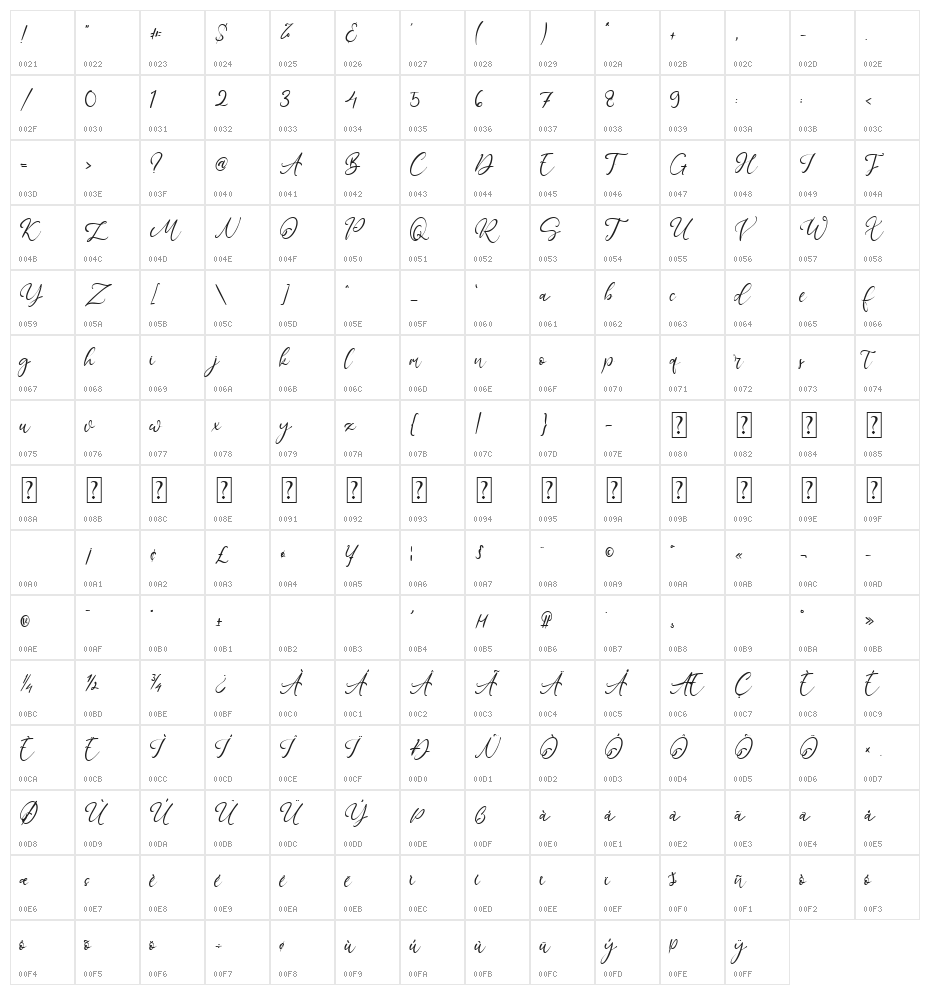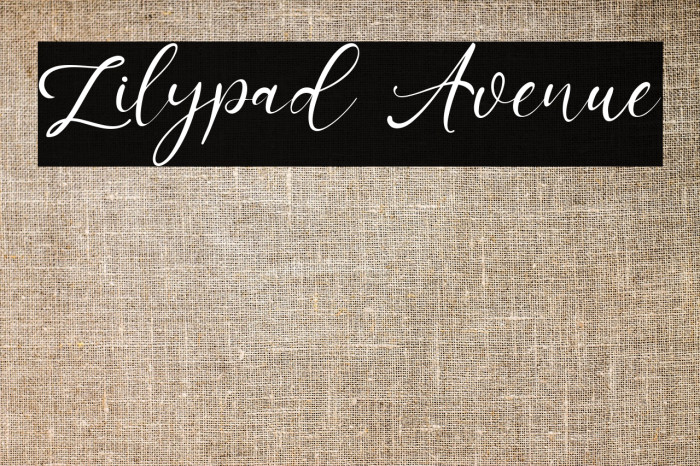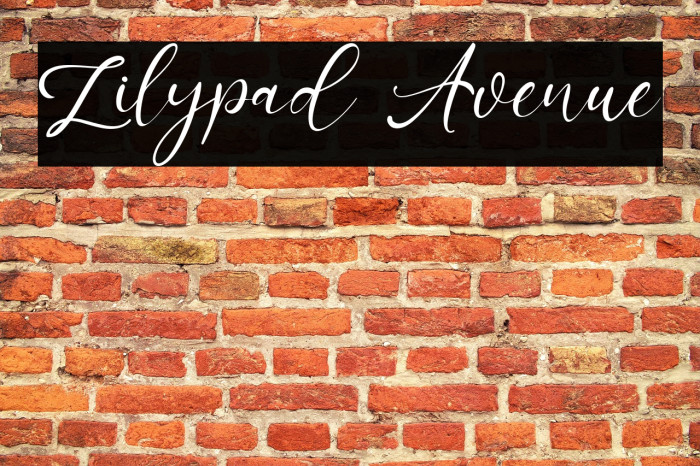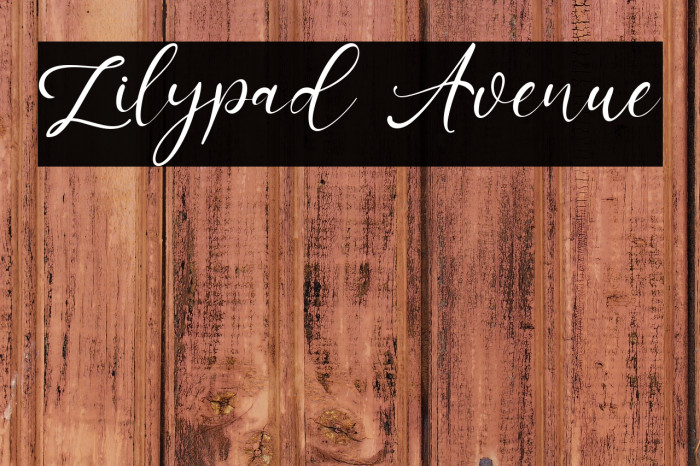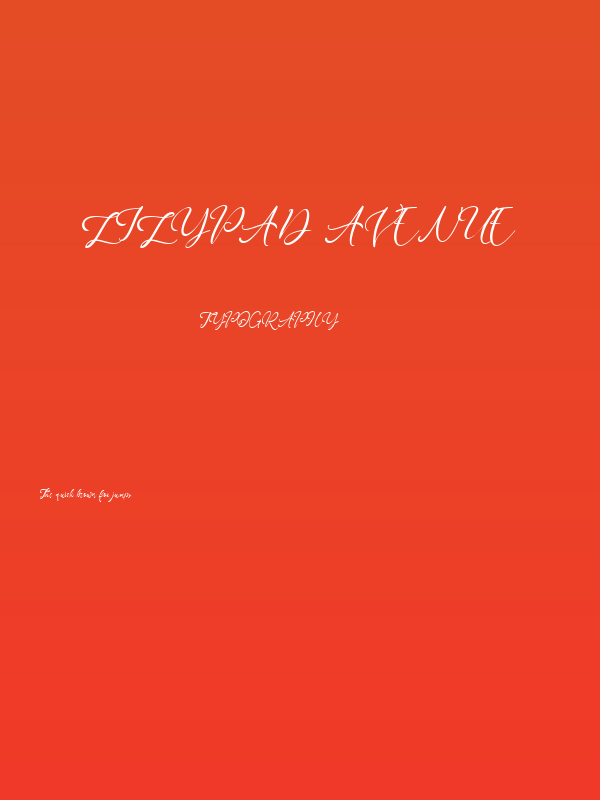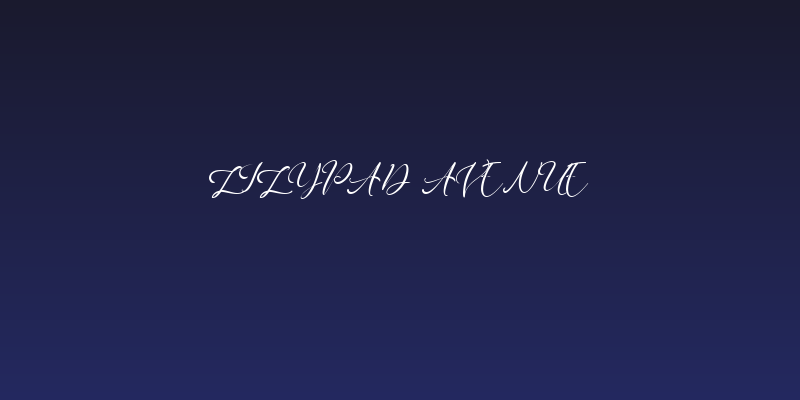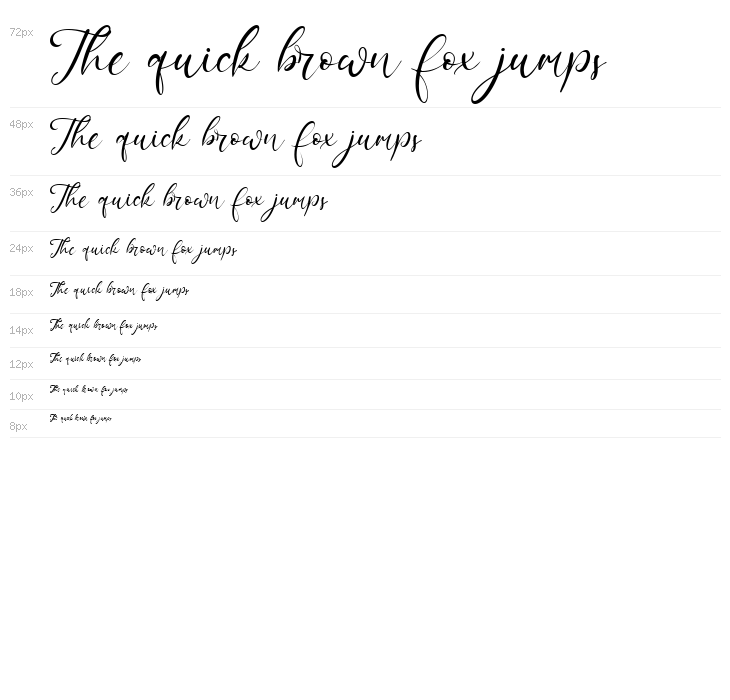
Lilypad Avenue Font
Lilypad Avenue Description
This elegant script font features a flowing, cursive style that exudes sophistication and grace. The characters are connected with smooth, sweeping strokes, giving it a handwritten appearance. The uppercase letters are tall and slightly slanted, while the lowercase letters maintain a consistent flow, enhancing readability. The numerals and special characters are designed to match the overall aesthetic, with delicate curves and loops. This font is perfect for adding a touch of elegance to any project, making it ideal for invitations, branding, and decorative purposes.
| Overall Style | Elegant, Handwritten |
| Use Case | Invitations, Branding, Decorative |
| Proposed Projects | Ideal for wedding invitations, elegant branding, greeting cards, and decorative signage. |